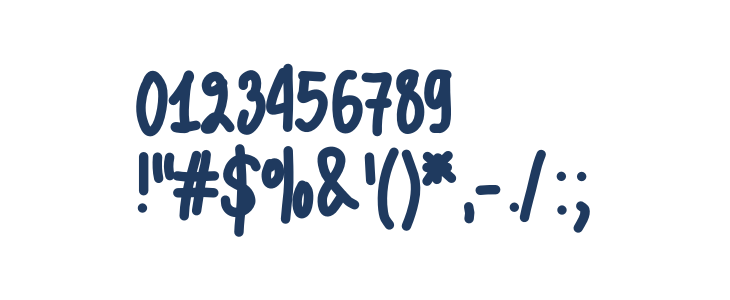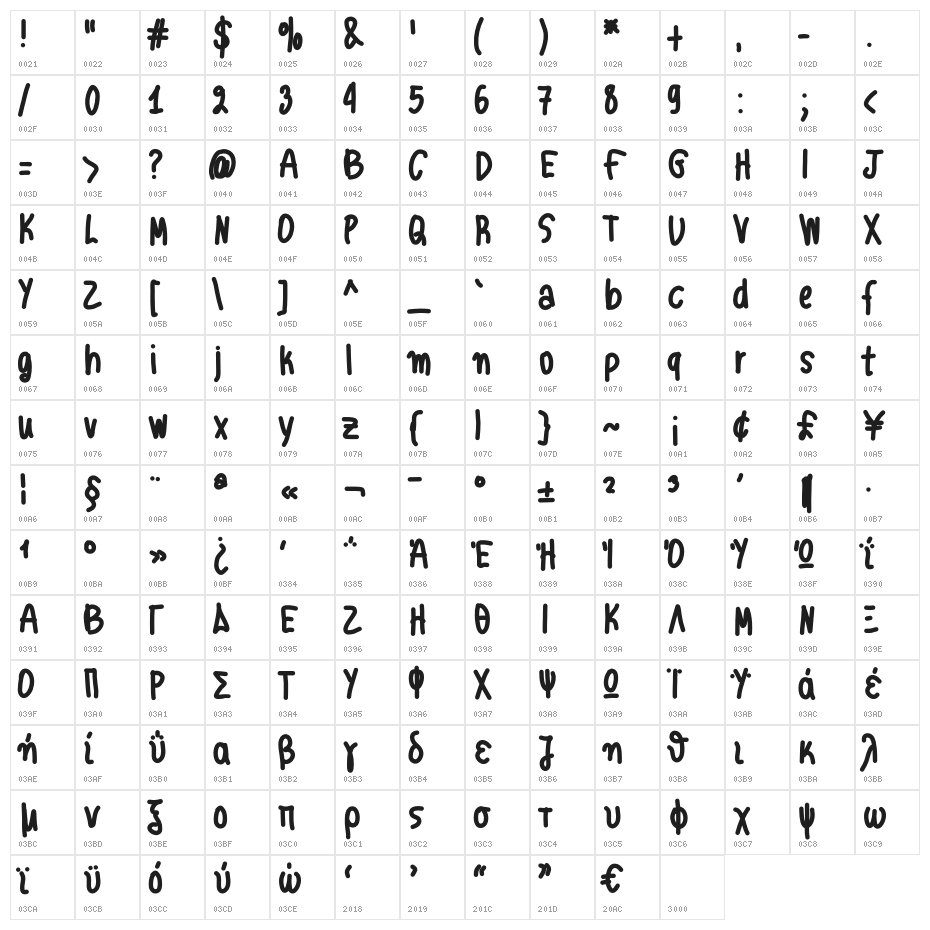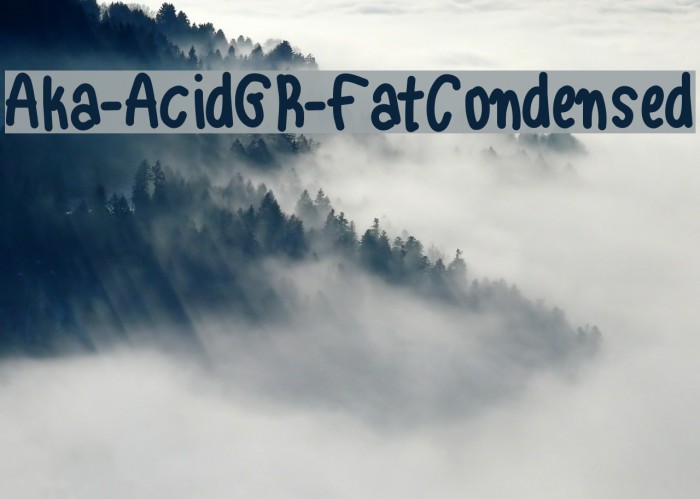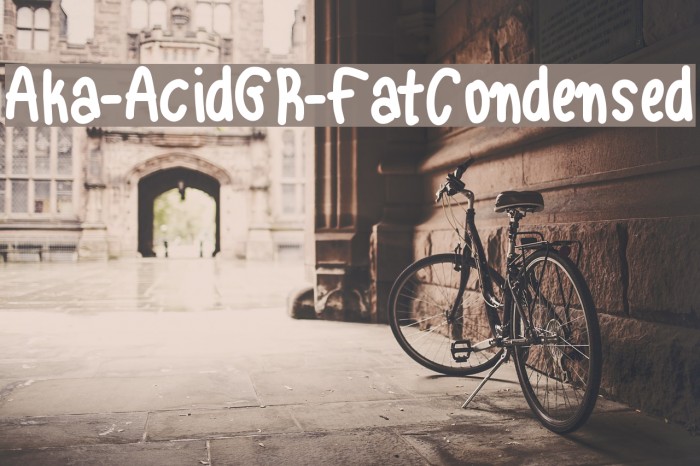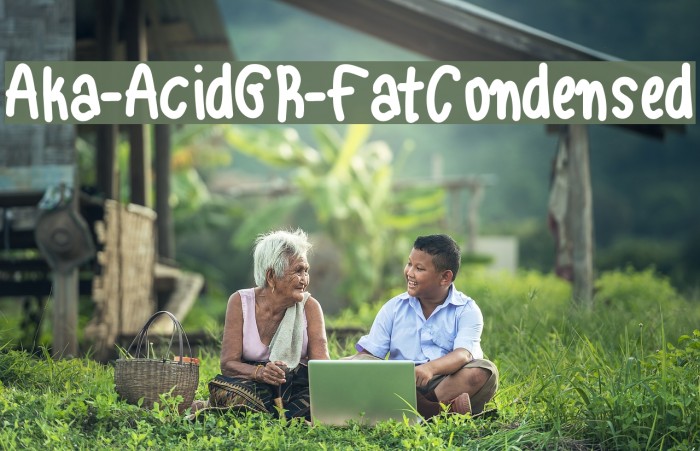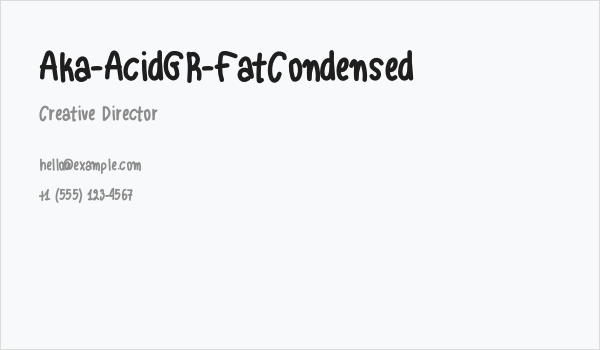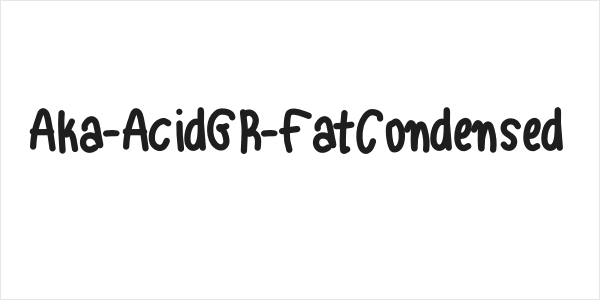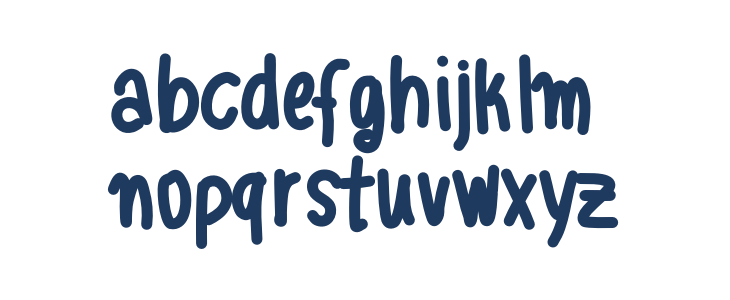
Aka-AcidGR-FatCondensed Font
Aka-AcidGR-FatCondensed Description
This font features a bold and playful style with a condensed structure. The characters are rounded and have a hand-drawn appearance, giving them a casual and approachable feel. The uppercase and lowercase letters maintain a consistent thickness, while the numbers and special characters are designed to match the overall aesthetic. The font's thick strokes and rounded edges contribute to its friendly and informal look, making it suitable for creative and fun projects. Its condensed nature allows for efficient use of space, making it ideal for headlines and titles where impact is desired.
| Overall Style | Playful, Casual |
| Proposed Projects | Ideal for children's books, playful branding, posters, and social media graphics. |